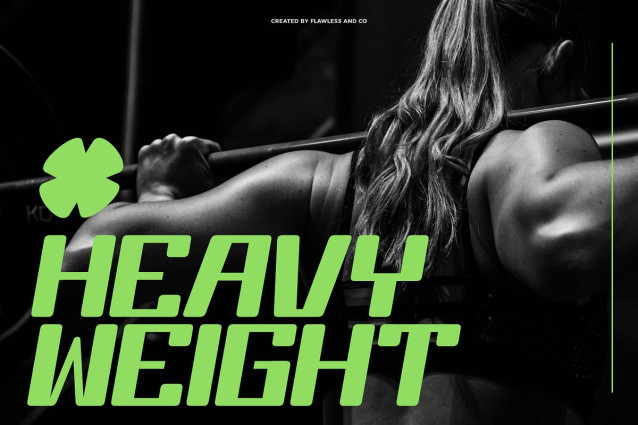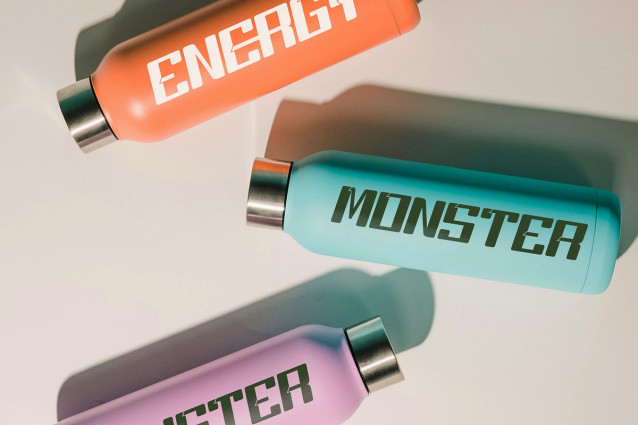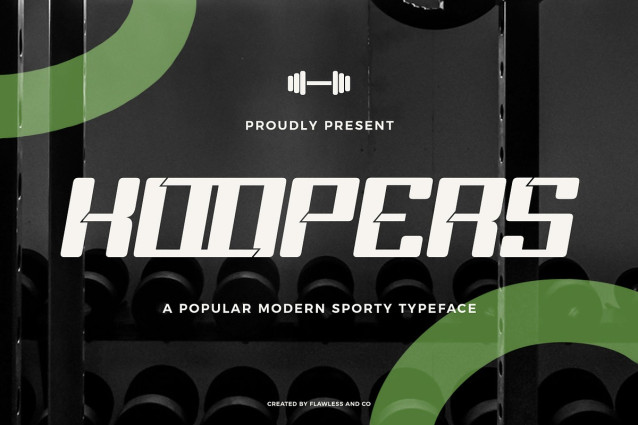
Koopers Font
Koopers Font is a bold and modern sporty typeface designed to make your text stand out with confidence and energy. Featuring sharp edges, strong letterforms, and a clean geometric structure, this font is perfect for sports branding, athletic apparel, esports logos, posters, headlines, and more. Inspired by competitive spirit and speed, KOOPERS gives your designs a powerful presence with a contemporary edge. Whether you’re designing for a team, tournament, or high-impact advertising, this typeface brings a dynamic and professional touch.